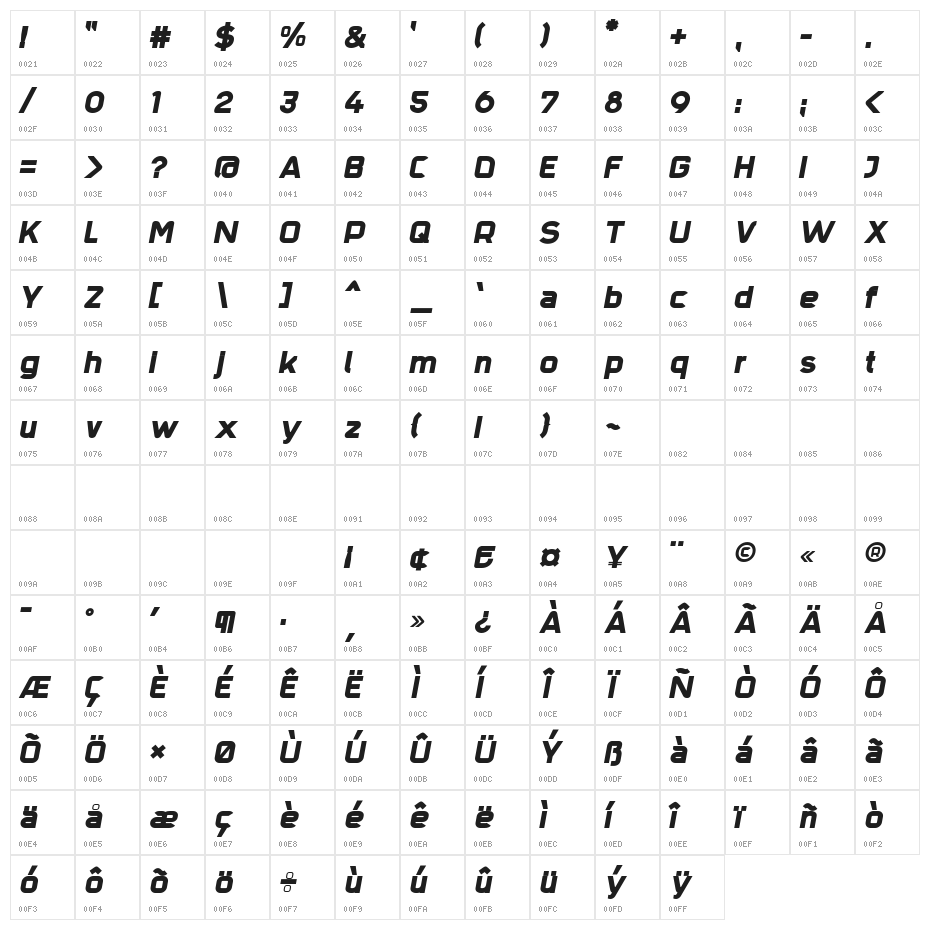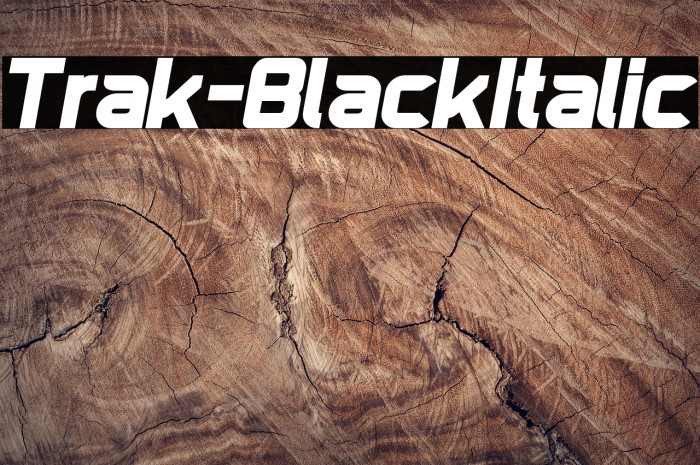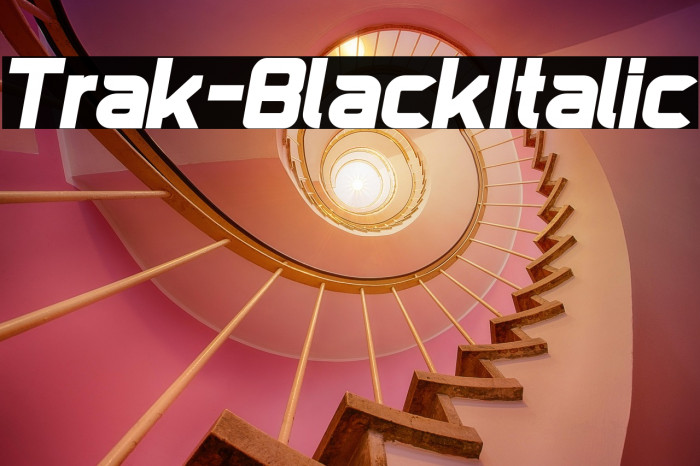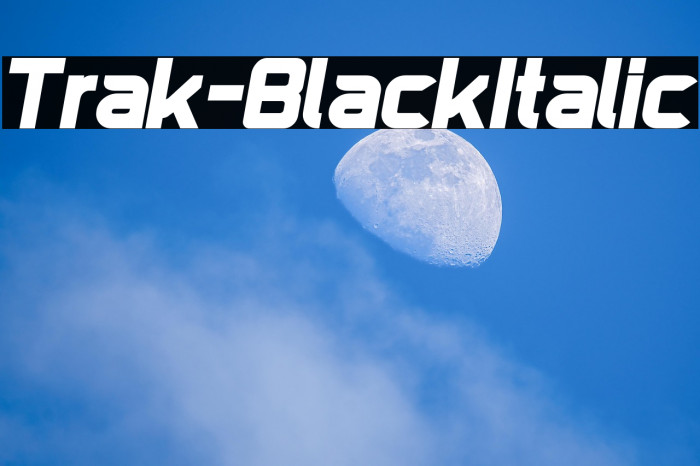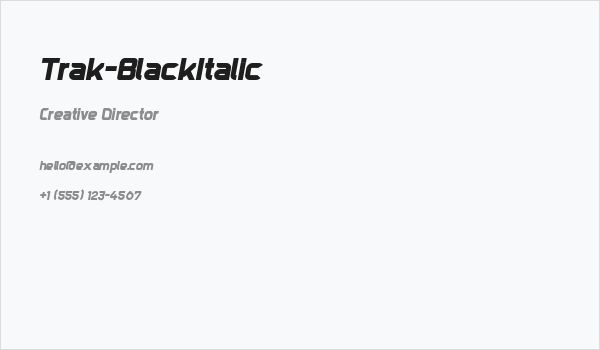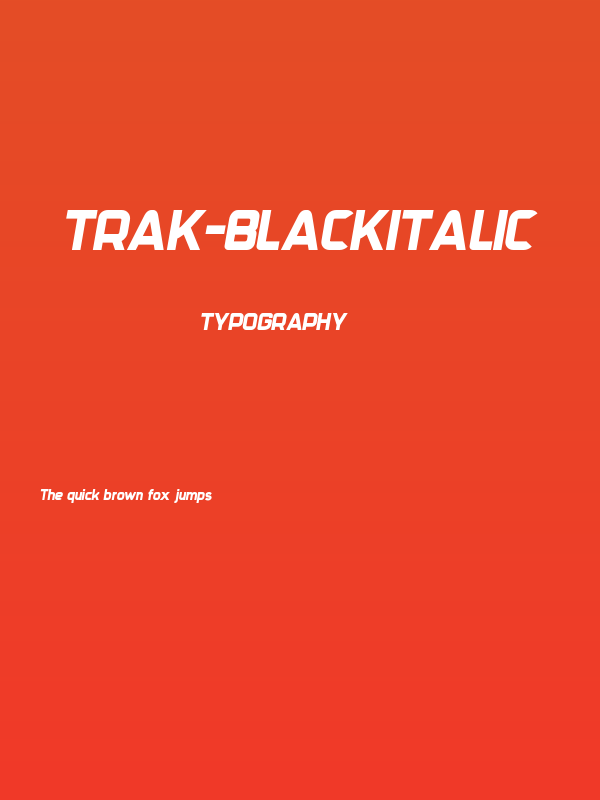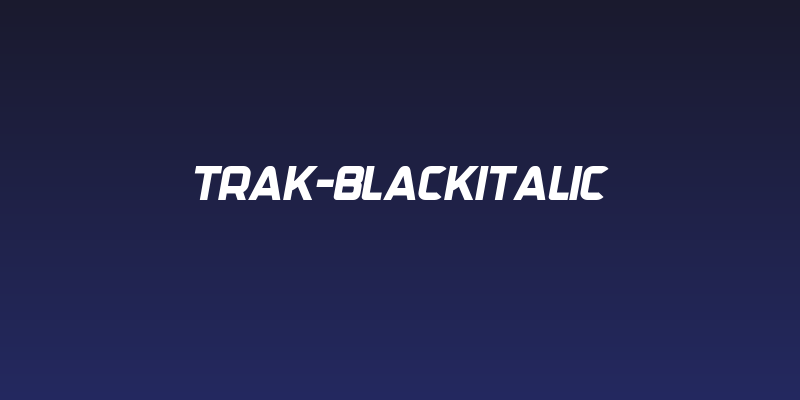
Trak-BlackItalic Font
Trak-BlackItalic Description
This font exhibits a bold and dynamic style with a strong italic slant, giving it a sense of motion and energy. The characters are robust and impactful, with a modern, geometric design that emphasizes clarity and readability. The uppercase and lowercase letters maintain a consistent weight, providing a uniform appearance across all text. The numerals and special characters are designed to match the boldness and style of the alphabet, ensuring a cohesive look. The font's overall aesthetic is suitable for making a strong visual statement, with its thick strokes and sharp angles.
| Proposed Projects | Ideal for sports branding, dynamic posters, modern advertising, and impactful headlines. |